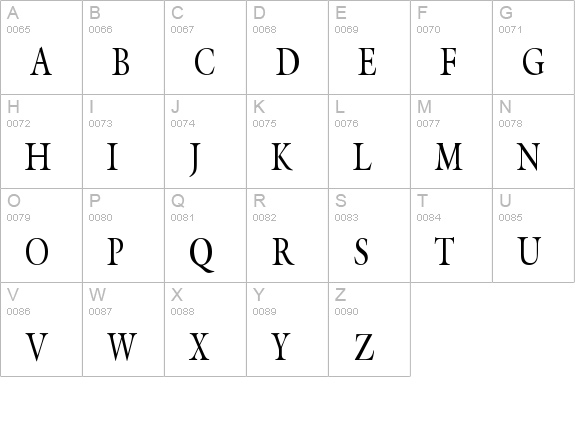
Galant Thin Normal is a delicate, low-contrast variant in the Galant typeface family \xE2\x80\x94 well suited to fashion editorial, minimal branding, and high-contrast display.
Introducing Galant Thin Normal, the perfect font for those seeking elegance and sophistication in their designs. This font effortlessly combines a slender and delicate appearance with a sense of modernity, making it ideal for a wide range of projects. Galant Thin Normal exudes a sense of refined grace, with its clean and precise lines that create a sleek and polished look. It is a versatile typeface that can be used for various design purposes, such as headlines, logos, branding, and more. Its effortless legibility ensures that your message will be conveyed with clarity and style. One of the most striking features of Galant Thin Normal is its free availability. That's right, this font can be downloaded for no cost at all from FontsMarket.com. This means that designers, creators, and enthusiasts alike can enjoy the benefits of this stunning font without any financial burden. With Galant Thin Normal, your designs will exude a sense of sophistication and professionalism. Its timeless appeal and modern edge make it a font that will never go out of style. So why wait? Download Galant Thin Normal today and elevate your designs to new heights, all while enjoying the freedom and accessibility of a free font.